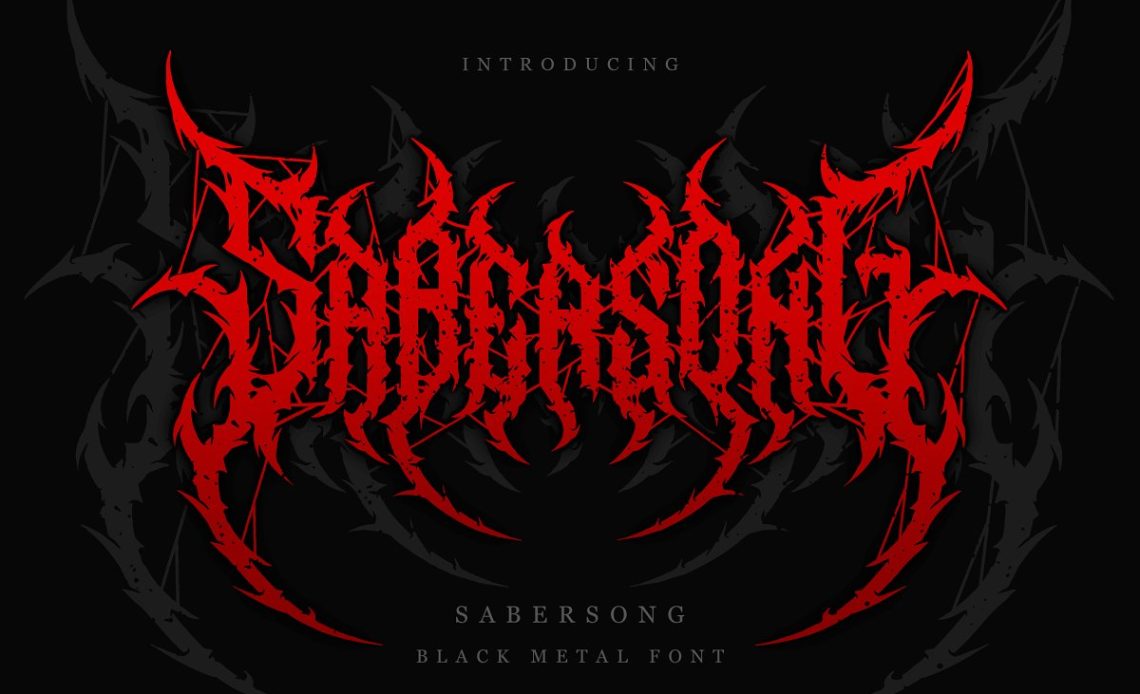
Introducing Sabersong, the ultimate Black Metal Font Vol.3 designed to elevate your typography posters and bring your designs to life. Created by the talented Madhaline Studio, this font is perfect for metal band logos, merchandise, clothing, apparel, and any project that requires a bold and heavy black metal aesthetic.
Sabersong is not just any font; it's a carefully crafted work of art that exudes power, emotion, and darkness. It boasts a unique and intricate design that will captivate your audience and leave a lasting impression on their minds. With its sharp edges and bold strokes, this font will make your text stand out from the crowd and command attention like never before.
What sets Sabersong apart is its versatility. Whether you're designing a band logo, a poster, a t-shirt, or a product label, this font will deliver a striking visual impact that will leave your audience wanting more. It's perfect for any project that needs a touch of the dramatic and the edgy.
But Sabersong is more than just a font; it's a statement. It's a symbol of rebellion, defiance, and individuality. It's a font for the bold and the daring, for those who are not afraid to stand out and make a statement. With Sabersong, you can let your creativity run wild and express your unique style and personality.